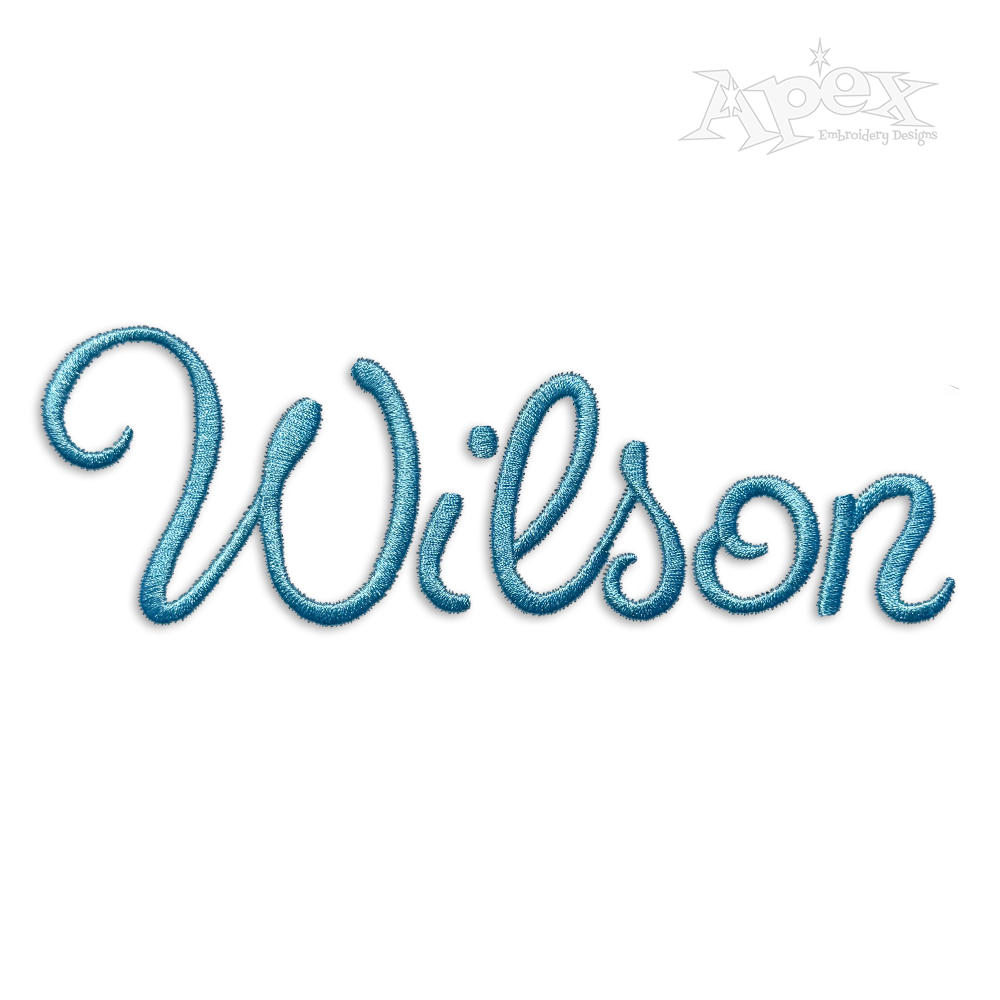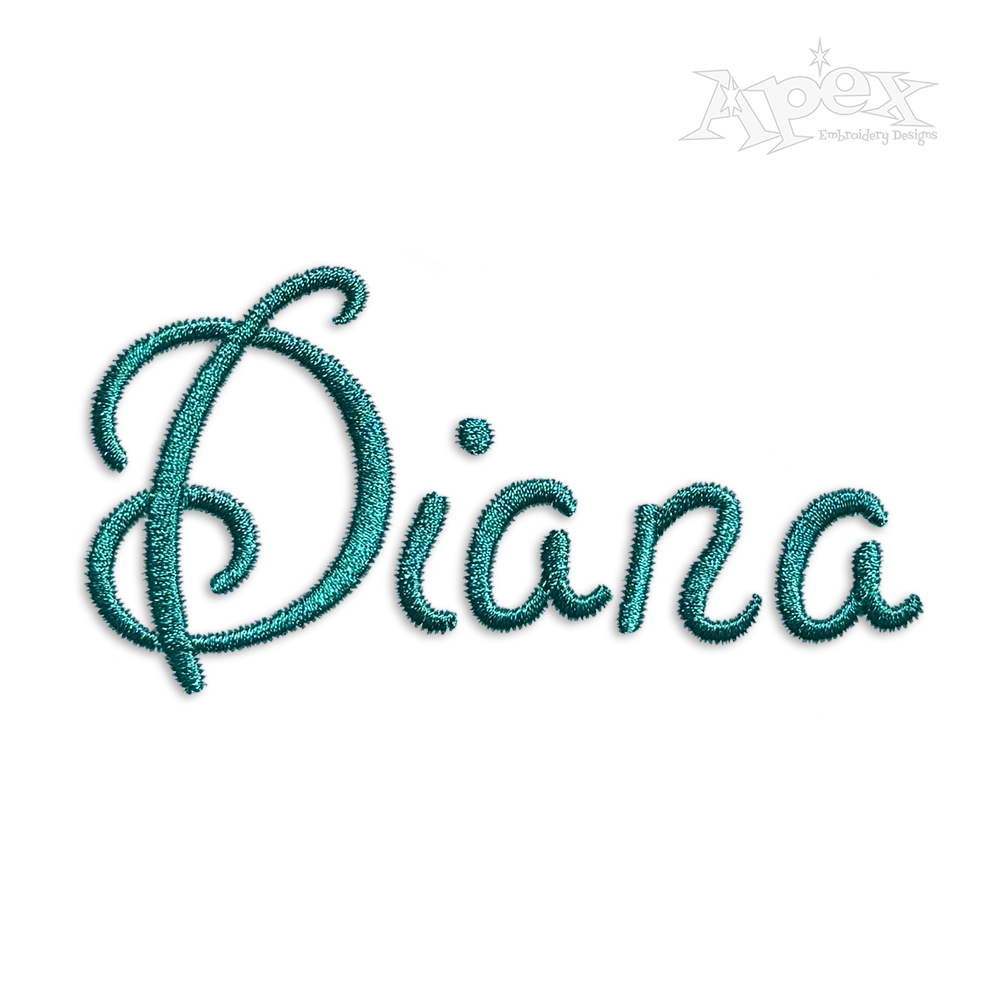
Sweet Judy Embroidery Fonts
Sweet Judy captures the breezy charm of a mid-century afternoon garden party, echoing the gentle grace of hand-embroidered vintage linens and sunny front-porch keepsakes. Designed from an artisan digitizer’s perspective, this font translates calligraphic rhythm into machine embroidery art, balancing cheerful curves with polished heirloom sophistication. Each letterform is crafted to glide seamlessly across cottons, silks, and linens, infusing every stitch with bespoke warmth, effortless personality, and understated luxury.
Project Ideas for Sweet Judy
With its lyrical cadence and timeless character, Sweet Judy brings warmth to an array of custom needlework creations:
- Luxury Table Linens: Stitch crisp family monograms on the diagonal corners of hemstitched linen dinner napkins or bespoke placemats.
- Heirloom Nursery Essentials: Personalize soft waffle-weave baby blankets, christening gowns, and heirloom crib pillows with timeless sentiment.
- Bridal & Wedding Trousseaus: Embroider matching satin bridal robes, handkerchiefs for the mother of the bride, or customized ring bearer pillows.
- Bespoke Resort Wear: Embellish relaxed linen button-downs, resort wear tunics, and canvas beach totes for effortless coastal styling.
- Personalized Gifting: Create custom monogramming on plush bath sheets, velvet travel pouches, and festive holiday stockings.
Sweet Judy adapts beautifully across garments and home accoutrements when positioned with purpose:
- Diagonal Napkin Corners: Position 1.5 to 2 inches from the hemmed corner to allow graceful display when folded.
- Center Chest: Place the 2-inch or 4-inch scale centered across the chest of sweatshirts, children's cardigans, or loungewear.
- Pocket & Yoke Accents: Use the 2-inch set subtly above shirt pockets, across back shoulder yokes, or along French cuffs.
- Pillow & Duvet Centers: Utilize the grand 5-inch uppercase scale flanked by lowercase initials for bold, balanced bedroom focal points.
Sweet Judy Craft & Letterform Details
Behind the joyful movement of Sweet Judy lies meticulous digitizing architecture. Each letter features carefully calculated satin stitch densities, ensuring full, lustrous thread coverage without placing unnecessary stress on the underlying fibers. The gentle tapers of entry and exit strokes simulate natural brush calligraphy, while intentional pull-compensation parameters preserve the circular integrity of every loop and counter. Dynamic stitch angles travel organically with the natural curvature of the alphabet, allowing light to catch the thread with a shimmering, hand-stitched depth that elevates everyday projects into treasured keepsakes.